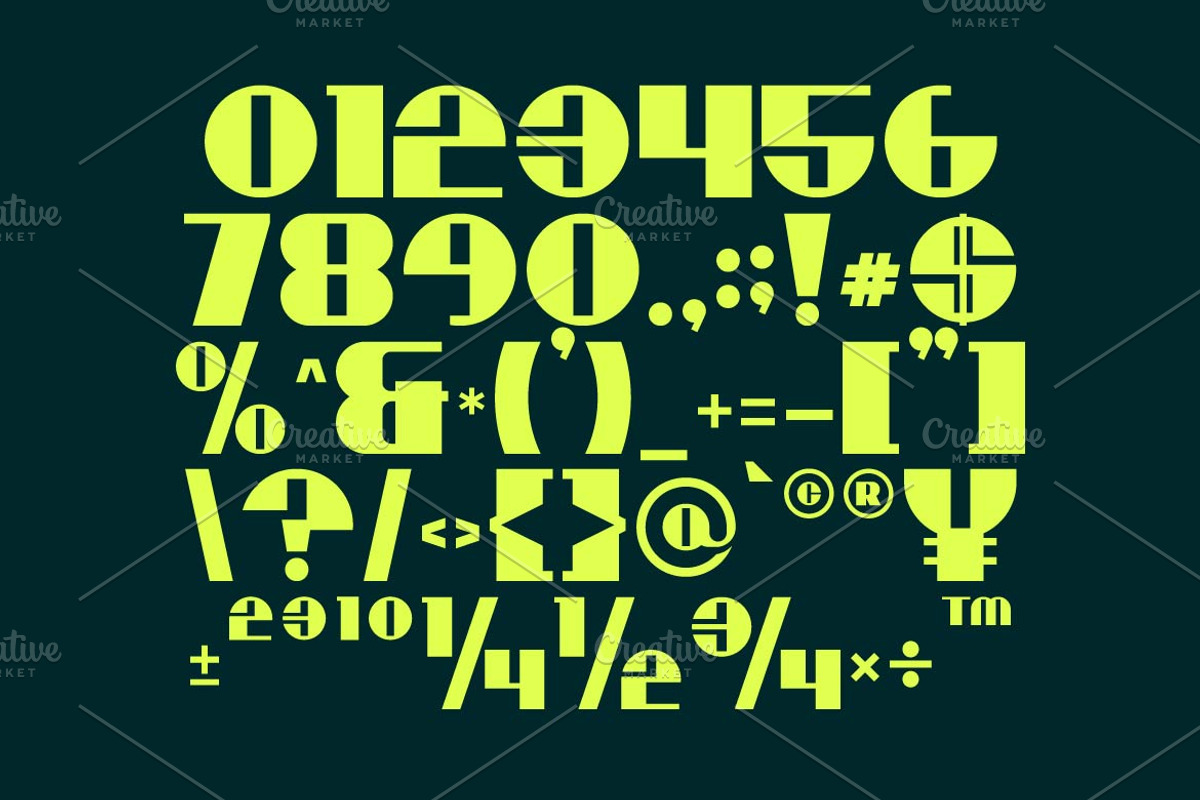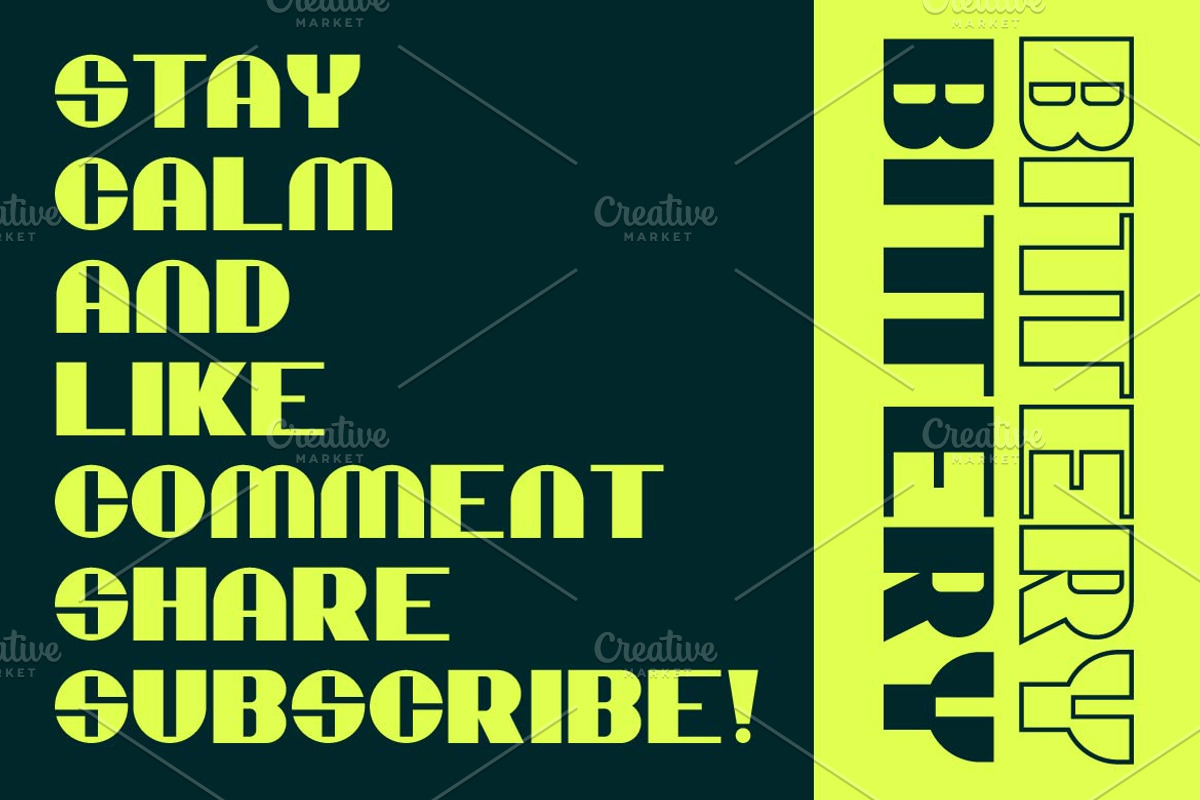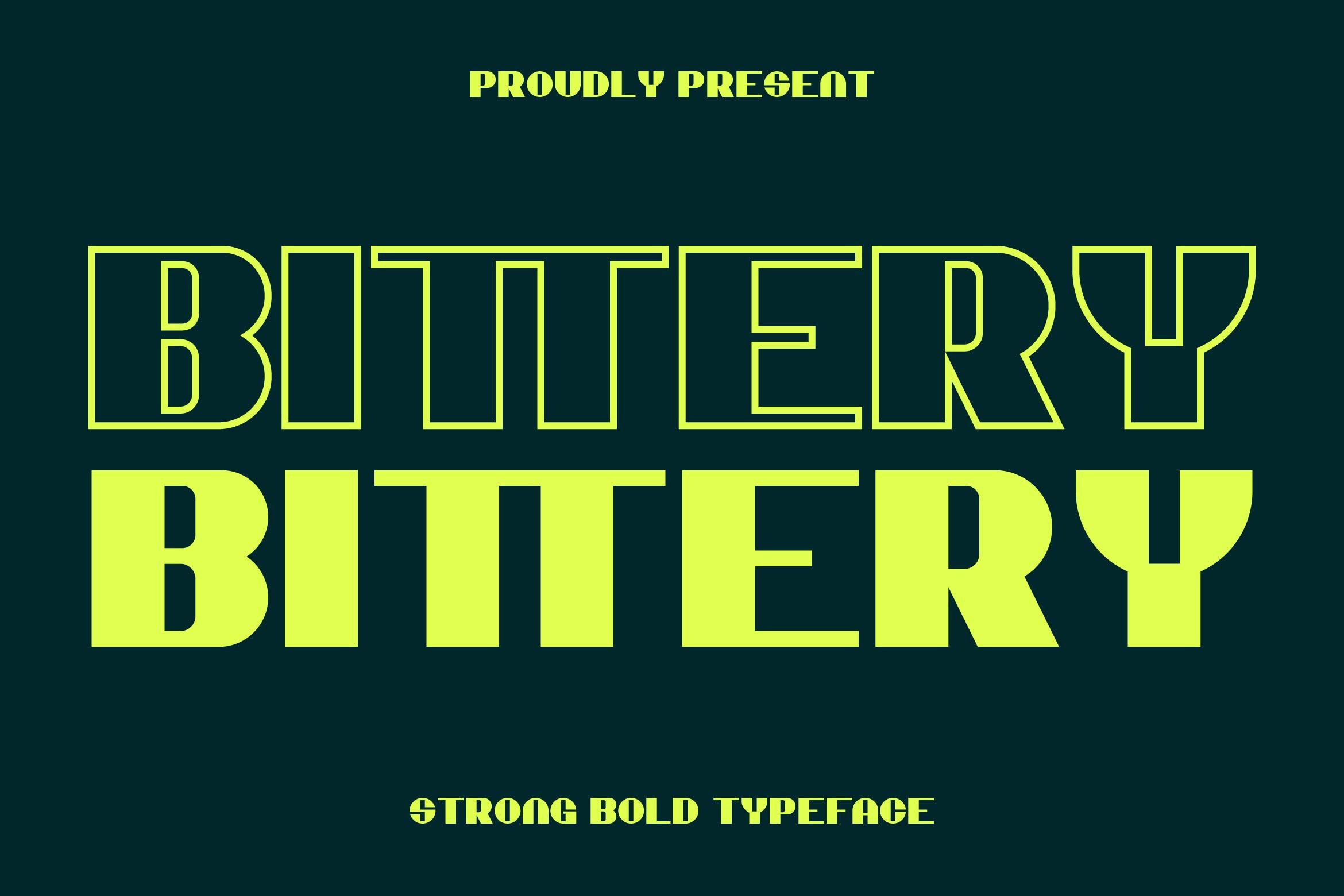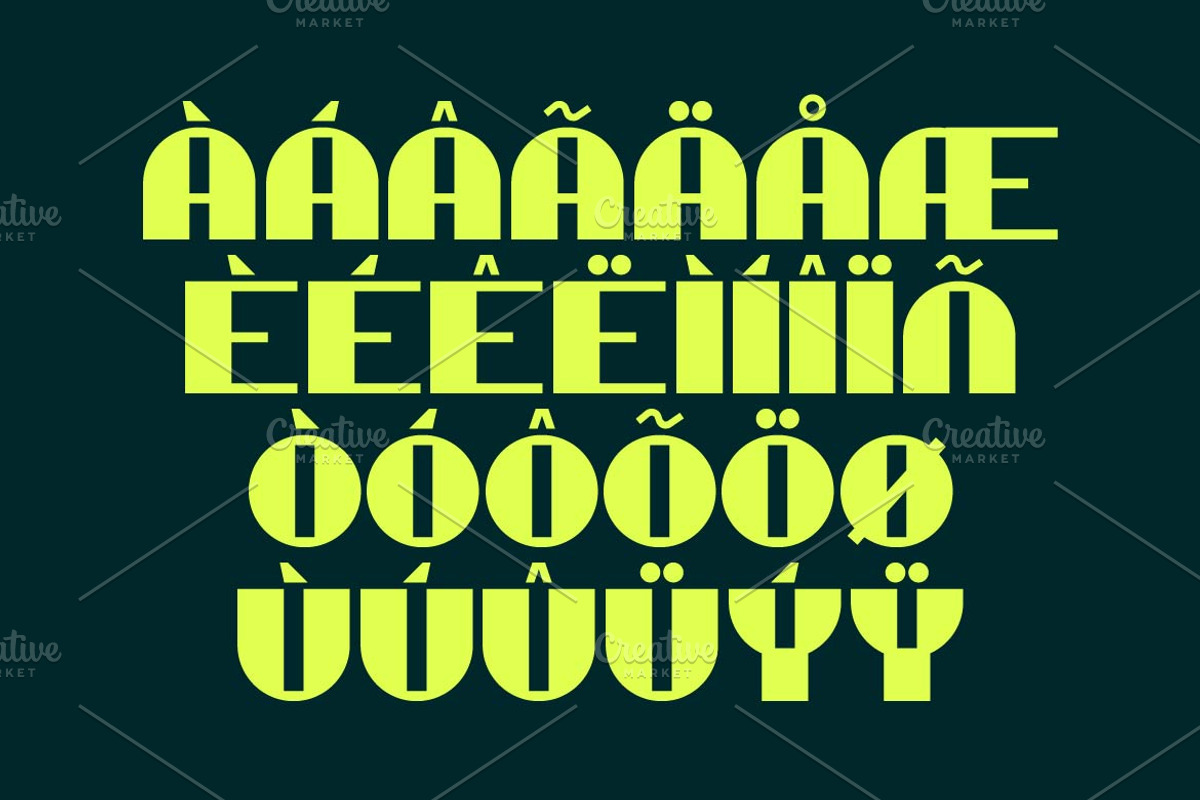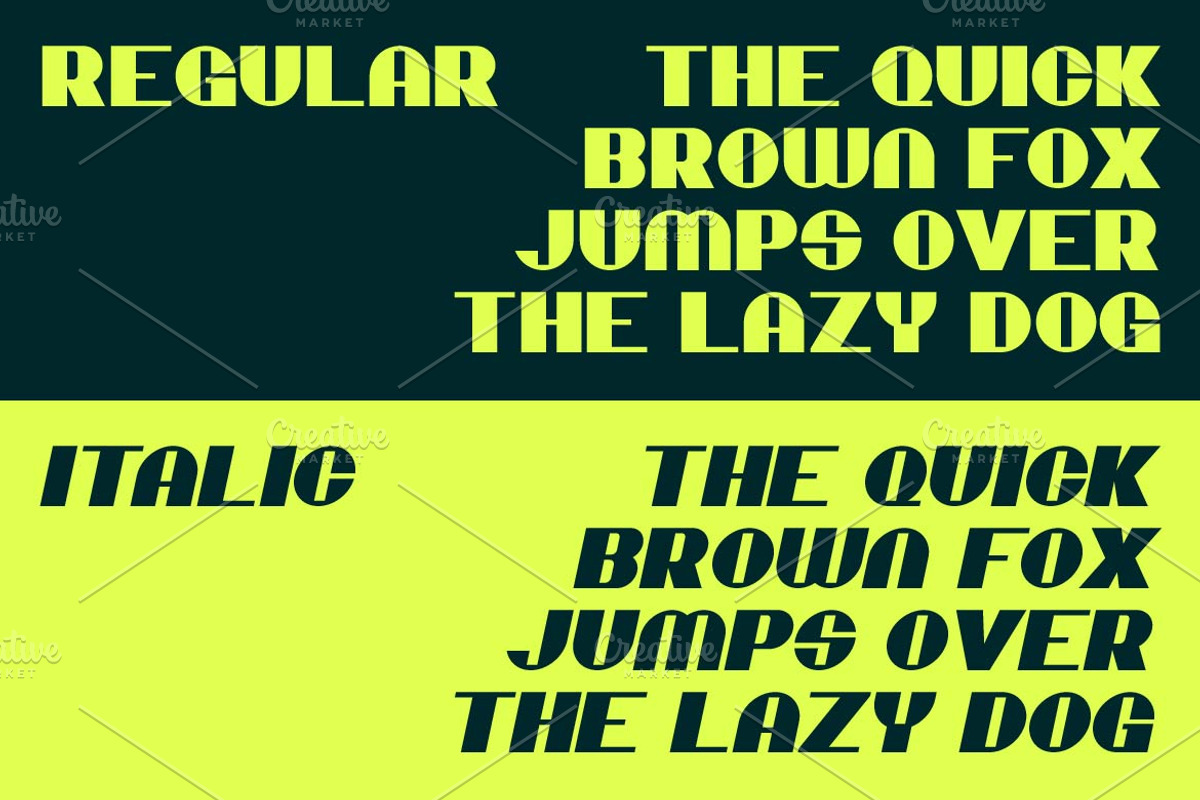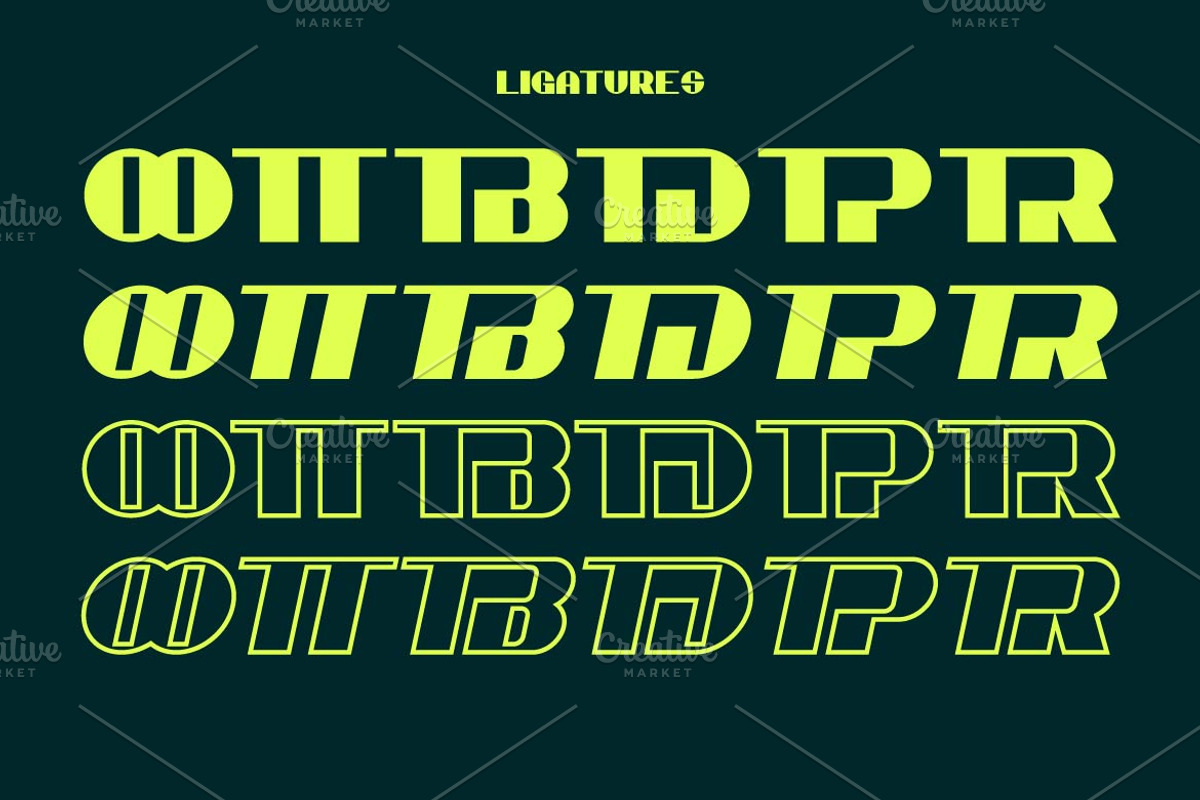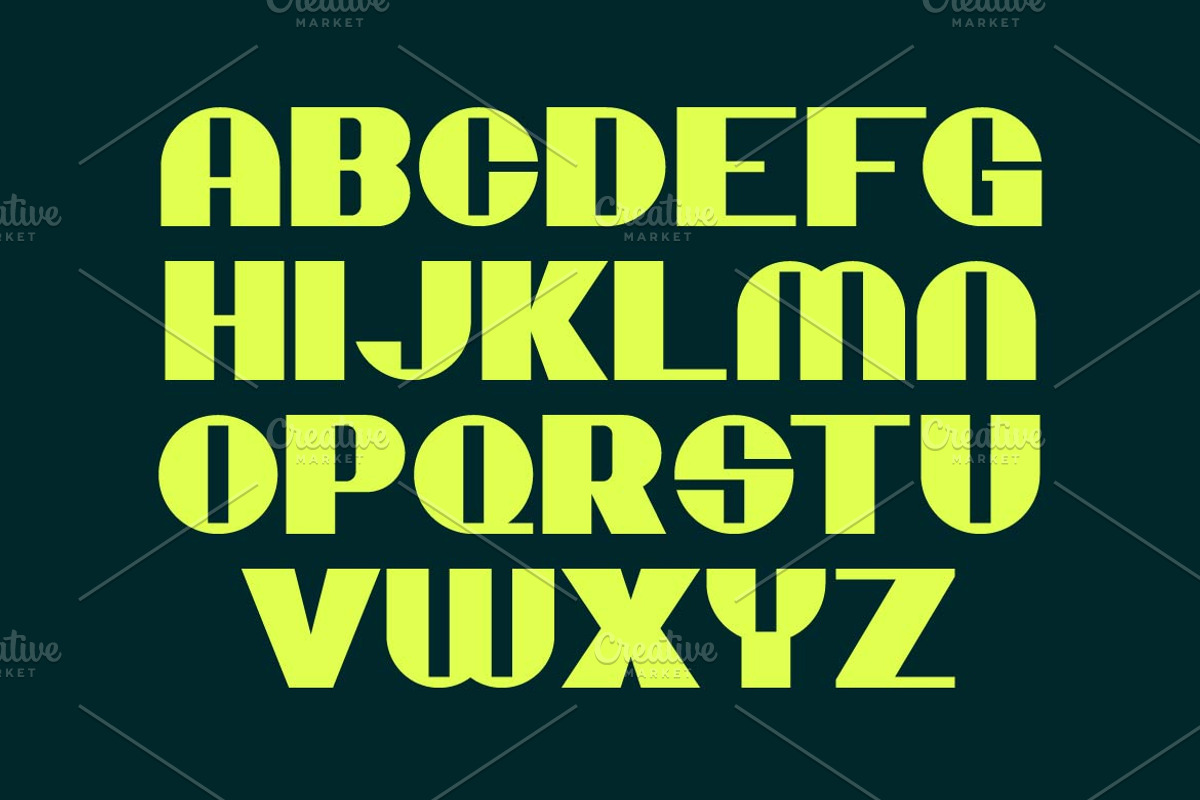
Bittery Strong Font
Etternal is a strong bold display font built to stand out. With powerful letterforms and confident curves, it’s perfect for headlines, posters, logos, and impactful branding. Featuring multilingual support, ligatures, and alternates, Etternal delivers a bold statement in any design, combining strength with style.